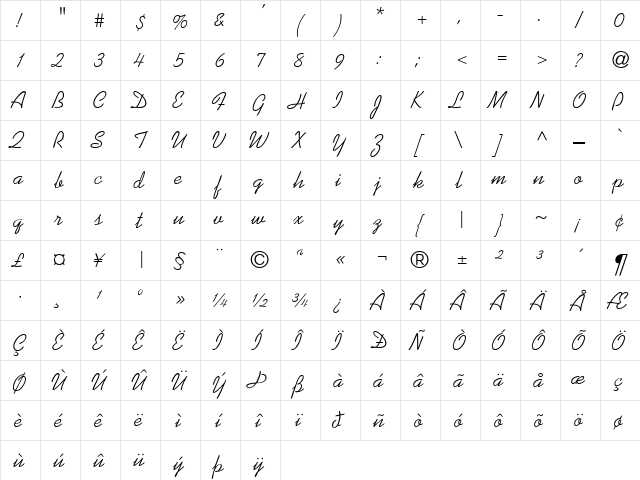
Swenson Regular
Design Context for Swenson Typeface
Swenson is a composed and adaptable typeface that performs quietly and consistently across a wide range of design contexts.